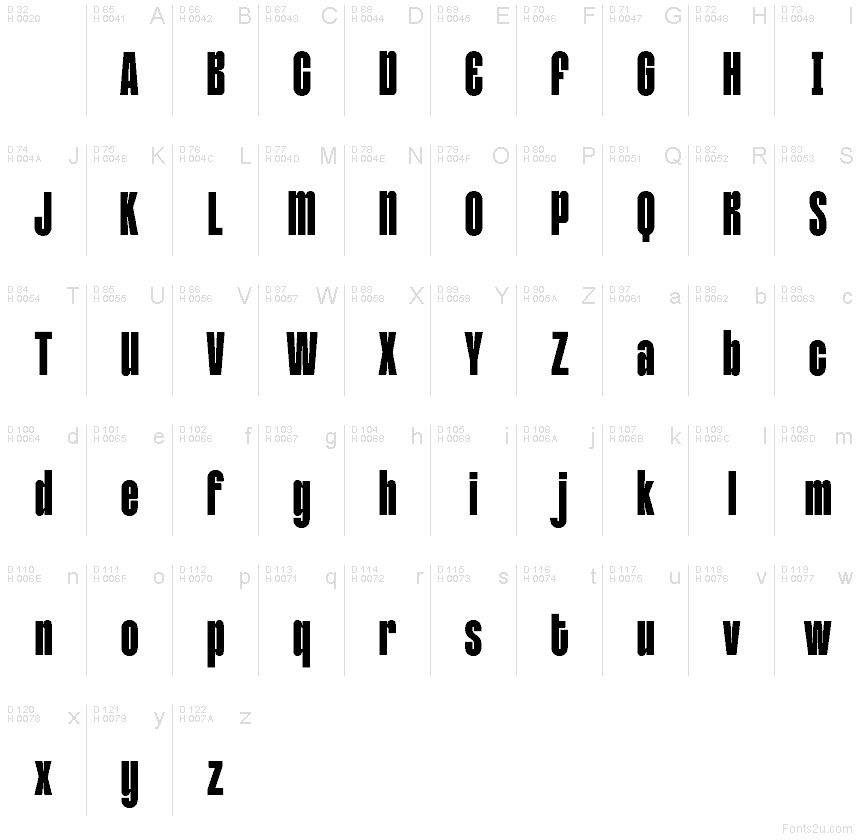
CS Brixton Regular Demo
CS Brixton font designed by Craft Supply Co. is a richly geometric typeface with subtle influences of classic, modernist aesthetics. This condensed sans serif font combines clean and sturdy lines in a prominent structure that accentuates its strong presence.